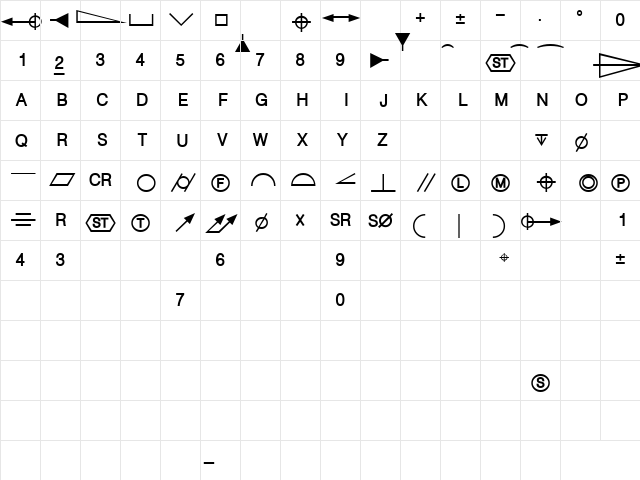
P22 GDT NoFrames Regular
Design Context for P22 GDT NoFrames Typeface
P22 GDT NoFrames takes a measured approach to typography — its balanced proportions and neutral character make it a reliable workhorse for both digital and print work.